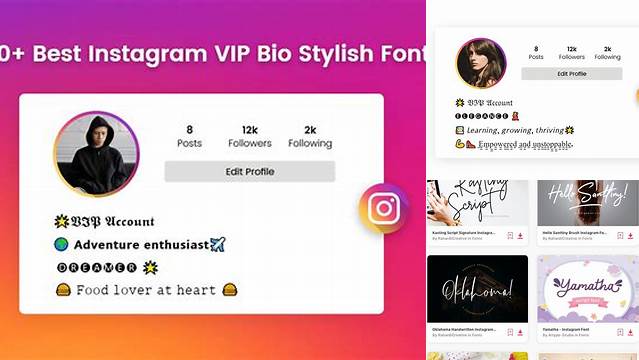
Cool Fonts For Instagram On IOS: Level Up Your Bio & Posts!
Hey guys! Want to make your Instagram profile and posts really pop? One of the easiest ways to do that is by using cool fonts! The default Instagram font is fine, but let's be honest, it can get a little boring. Luckily, there are tons of ways to spice things up, especially if you're rocking an iOS device. In this article, we're diving deep into the world of Instagram fonts on iOS, showing you how to find them, use them, and make your profile stand out from the crowd. We’ll cover everything from fancy fonts for your bio to eye-catching fonts for your stories and captions. Get ready to unleash your creativity and make your Instagram game stronger than ever!
1. Why Use Different Fonts on Instagram?
Let's face it, scrolling through Instagram can sometimes feel like looking at a sea of the same old thing. Everyone's using similar filters, posting similar content, and, yes, using the same font! Using different fonts is a super simple way to instantly add some personality to your profile. Think of it like this: your font is part of your brand. Whether you're going for playful, elegant, bold, or quirky, the right Instagram font can help you communicate your vibe to your followers. Beyond aesthetics, using diverse fonts on Instagram can also be a strategic move. A unique font can make your captions more readable, highlight important information, or simply grab someone's attention as they're scrolling through their feed. Imagine you're running a contest – using a bold, eye-catching font to announce the details is way more effective than burying it in regular text. So, ditch the monotony and let's get font-tastic!
2. Best Font Generator Apps for iOS
Okay, so you're sold on the idea of using cool fonts on Instagram, but where do you even find them? Thankfully, there are tons of awesome font generator apps available for iOS that make it super easy to create stylish text. These apps basically work by generating Unicode characters that look like different fonts, but are actually compatible with Instagram's text fields. Some of the best font generator apps for iOS include Fontsy, Fonts for Instagram, and Cool Fonts. These apps usually have a wide variety of fonts to choose from, from elegant scripts to bold sans-serifs and even fun, quirky styles. They're generally free to download and use, although some may offer premium features or font packs for a small fee. The best part? Using these apps is usually as simple as typing your text into the app, choosing your font, and then copying and pasting it into your Instagram bio, caption, or story. Easy peasy!
3. How to Change Your Instagram Bio Font on iOS
Your Instagram bio is like your first impression – it's the first thing people see when they land on your profile. So, it's prime real estate for showcasing your personality! Changing your Instagram bio font is a super effective way to make it stand out. The process is really straightforward, especially on iOS. First, you'll need to use one of the font generator apps we talked about earlier. Type the text you want in your bio into the app, then scroll through the font options until you find one you love. Once you've found your perfect bio font, just copy the text and head over to your Instagram profile. Tap "Edit Profile," then paste the text into your bio field. Boom! You've got a stylish new bio that reflects your unique vibe. Remember to keep your bio concise and engaging, and choose a font that's both eye-catching and easy to read. A little font magic can go a long way in making your profile more memorable!
4. Cool Fonts for Instagram Stories on iOS
Instagram Stories are all about grabbing attention quickly, and cool fonts can play a huge role in that. While Instagram itself offers a few basic font options for Stories, they can sometimes feel a little limiting. That's where font generator apps come in handy again! Using an app like Fontsy or Cool Fonts, you can create all sorts of unique fonts for your Instagram Stories. Imagine adding a handwritten-style font to announce a sale, or using a bold, futuristic font to promote a new product. The possibilities are endless! The process is the same as changing your bio font: just type your text into the app, choose your font, copy it, and paste it into your Story. You can even use different fonts within the same Story to create visual interest and highlight different parts of your message. Get creative and have fun experimenting with different styles to see what resonates best with your audience.
5. Fonts for Instagram Captions on iOS
Captions are your chance to really connect with your audience, and the font you use can influence how your message is received. A well-chosen font can make your captions more engaging, readable, and reflective of your personality. Just like with bios and Stories, you can use font generator apps to create custom fonts for your Instagram captions on iOS. Think about the overall tone and style you want to convey. If you're sharing a heartfelt story, a softer, more elegant font might be a good choice. If you're posting something funny or playful, a bolder or quirkier font could be more appropriate. Don't be afraid to experiment and see what works best for you. Remember, the goal is to make your captions stand out and encourage your followers to engage with your content. A little font flair can make all the difference!
6. How to Use Font Generator Apps Effectively
So, you've got your font generator app downloaded and you're ready to go wild with fonts, but it's important to use these tools effectively. Here are a few tips to keep in mind: First, readability is key. While fancy, ornate fonts can look cool, they're not always the easiest to read, especially on a small screen. Choose fonts that are clear and legible, so your message doesn't get lost in translation. Second, consider your brand. The fonts you use should align with your overall brand aesthetic and personality. If you have a minimalist brand, a clean, sans-serif font might be a better choice than a frilly script font. Third, don't overdo it. Using too many different fonts in the same bio, caption, or Story can look cluttered and overwhelming. Stick to one or two fonts to maintain a cohesive and professional look. Finally, remember that these fonts are actually Unicode characters, so they might not display perfectly on all devices or platforms. It's always a good idea to double-check how your text looks on different screens before you post.
7. Free Font Options for Instagram on iOS
The good news is that you don't have to spend a dime to access cool fonts for Instagram on iOS. Many font generator apps offer a wide variety of free font options, so you can experiment and find the perfect style without breaking the bank. Some apps may offer premium fonts or font packs for purchase, but the free options are usually more than enough to get you started. Plus, Instagram itself offers a few basic font options within the Stories feature, which are always free to use. Don't be afraid to mix and match free fonts from different sources to create a unique look. You can combine a free font from a generator app in your bio with a built-in Instagram font in your Story, for example. The key is to have fun and explore the possibilities!
8. Paid Font Options for Instagram on iOS
If you're looking for even more font choices or want to support the developers of your favorite font generator app, you might consider exploring paid font options. Some apps offer premium font packs or subscriptions that unlock a wider range of styles. These paid fonts often include more unique, high-quality designs that can really elevate your Instagram presence. Before you shell out any cash, make sure the paid fonts are worth the investment. Consider whether they truly align with your brand and whether you'll use them frequently enough to justify the cost. You can also look for apps that offer a free trial period, so you can test out the paid fonts before committing to a purchase. And remember, there are tons of amazing free font options available, so you don't need to spend money to create a stylish Instagram profile.
9. Combining Fonts for Visual Impact
Using different fonts strategically can create a major visual impact on your Instagram. The key is to combine fonts thoughtfully, not just randomly. A good rule of thumb is to choose two fonts that complement each other – for example, a bold heading font and a clean, readable body font. Think about contrast. Pairing a script font with a sans-serif font can create a nice visual contrast, while using two similar fonts might look a bit boring. You can also use different fonts to highlight different parts of your message. For example, you might use a bold font for your bio headline and a more understated font for the rest of your text. In your Stories, try using a different font for your main text and your call to action. Just remember to keep it consistent! Sticking to a consistent font pairing throughout your profile and content will help create a cohesive and professional look.
10. Font Size and Spacing on Instagram
Choosing the right font is only half the battle – you also need to pay attention to font size and spacing. Text that's too small can be difficult to read, while text that's too large can look overwhelming. Similarly, too little spacing can make your text look cramped, while too much spacing can make it feel disjointed. In your Instagram bio, aim for a font size that's large enough to be easily readable on a mobile screen, but not so large that it takes up too much space. In your Stories, you can adjust the font size to fit your layout and create visual hierarchy. For captions, consider breaking up long blocks of text with line breaks to improve readability. You can also use emojis or symbols to add visual interest and break up the monotony of the text. Experiment with different font sizes and spacing until you find a balance that looks good and is easy to read.
11. Readability Considerations for Instagram Fonts
We've talked a lot about cool fonts and visual impact, but let's not forget the most important factor: readability. No matter how stylish a font looks, if it's difficult to read, it's not doing its job. When choosing fonts for Instagram, prioritize clarity and legibility. Avoid fonts that are too ornate, condensed, or have unusual letterforms. These fonts might look interesting, but they can be a pain to decipher, especially on a small screen. Consider your audience. If you're targeting a younger demographic, you might be able to get away with more playful fonts. But if you're trying to reach a professional audience, a cleaner, more classic font is probably a better choice. Always test your text on different devices and screen sizes to make sure it's easy to read for everyone. And if you're ever in doubt, err on the side of simplicity. A clear, readable font will always be more effective than a fancy but illegible one.
12. Font Color and Backgrounds on Instagram
The color of your font and the background you use can have a huge impact on readability and visual appeal. On Instagram Stories, you have a variety of font color options to choose from, and you can even use the color picker tool to select a custom color. When choosing a font color, consider the background. If you're using a light background, a dark font will provide the best contrast. Conversely, if you're using a dark background, a light font will be more visible. Avoid using font colors that are too similar to the background color, as this can make your text difficult to read. You can also use backgrounds strategically to make your text stand out. Try adding a solid color background behind your text in your Stories, or using a subtle gradient to add visual interest. Just make sure your background doesn't distract from your message. The goal is to create a visually appealing and readable combination of font color and background.
13. Matching Fonts to Your Instagram Aesthetic
Your Instagram aesthetic is the overall look and feel of your profile, and your fonts should be a part of that. Choosing fonts that match your aesthetic can help you create a cohesive and professional-looking profile. If you have a minimalist aesthetic, clean, sans-serif fonts are a great choice. These fonts are simple, modern, and easy to read. If you have a more playful or whimsical aesthetic, you might opt for a script font or a font with a bit more personality. If your aesthetic is bold and edgy, a strong, geometric font could be a good fit. Think about the colors you use in your photos and graphics. Choose fonts that complement your color palette. For example, if you use a lot of warm colors, a font with a warm, inviting feel might be a good choice. The key is to choose fonts that reflect your brand and create a consistent visual experience for your followers.
14. Using Fonts to Highlight Key Information
Fonts can be a powerful tool for highlighting key information in your Instagram captions, bios, and Stories. By using different fonts strategically, you can draw attention to the most important parts of your message. For example, you might use a bold font to highlight a call to action, like "Shop Now" or "Learn More." You can also use different fonts to differentiate between headings and body text. A larger, bolder font for your headings will make them stand out and help your readers quickly scan your content. In your bio, consider using a unique font for your headline to grab attention. In your Stories, you can use animated fonts or text effects to highlight key words or phrases. Just remember to use fonts strategically and sparingly. Overusing different fonts can make your content look cluttered and overwhelming. The goal is to use fonts to guide your readers' eyes and help them focus on the most important information.
15. Creating a Font Style Guide for Your Brand
If you're serious about branding your Instagram, creating a font style guide is a smart move. A font style guide is a document that outlines the fonts you use for your brand and how you use them. It ensures consistency across all your content and helps you maintain a professional and recognizable look. Your font style guide should include the primary and secondary fonts you use, as well as guidelines for how to use them in different contexts. For example, you might specify which font to use for headings, body text, captions, and Stories. You should also include information about font sizes, colors, and spacing. Share your font style guide with anyone who creates content for your brand, such as your social media manager or graphic designer. This will help them maintain consistency and ensure that all your content aligns with your brand aesthetic. Creating a font style guide is an investment in your brand that will pay off in the long run.
16. The Psychology of Fonts: How Fonts Affect Perception
Did you know that fonts can actually influence how people perceive your message? Different fonts evoke different emotions and associations, so choosing the right font can be crucial for communicating your brand's personality. Serif fonts, like Times New Roman, often convey a sense of tradition, authority, and sophistication. Sans-serif fonts, like Helvetica or Arial, tend to feel more modern, clean, and approachable. Script fonts can be elegant and romantic, but they can also be difficult to read if overused. Display fonts, which are more decorative and unique, can be great for grabbing attention, but they should be used sparingly. Think about the message you want to convey and the emotions you want to evoke. If you want to project a sense of trust and reliability, a classic serif font might be a good choice. If you want to come across as innovative and cutting-edge, a modern sans-serif font could be a better fit. Understanding the psychology of fonts can help you make more strategic choices and create a more impactful message.
17. Font Pairing Tips for Instagram
We've already touched on the importance of combining fonts thoughtfully, so let's dive a little deeper into font pairing tips for Instagram. The goal of font pairing is to create visual harmony and make your text more engaging and readable. A classic font pairing strategy is to combine a serif font with a sans-serif font. This creates a nice contrast and makes your headings stand out. For example, you could pair a bold sans-serif font for your headings with a more elegant serif font for your body text. Another font pairing tip is to choose fonts with different weights and styles. If you're using a bold font for your headings, try pairing it with a lighter weight font for your body text. You can also experiment with different font styles, such as italics or condensed fonts, to add visual interest. When pairing fonts, it's important to choose fonts that complement each other, not compete. Avoid pairing fonts that are too similar, as this can look boring. And try to limit yourself to two or three fonts per design to avoid overwhelming your readers. With a little practice, you'll be able to master the art of font pairing and create stunning visual content for your Instagram.
18. Fonts for Different Instagram Post Types
The fonts you use on Instagram might vary depending on the type of post you're creating. For example, the fonts you use in your bio might be different from the fonts you use in your Stories or captions. In your bio, you want to choose fonts that are eye-catching and memorable, but also easy to read at a glance. Consider using a unique font for your headline and a cleaner font for the rest of your bio text. For Instagram Stories, you have more flexibility to experiment with different fonts and styles. You can use animated fonts, handwritten fonts, or bold, attention-grabbing fonts to make your Stories more engaging. In your captions, readability is key. Choose fonts that are clear and legible, even on a small screen. You can use different fonts to highlight key words or phrases, but avoid using too many different fonts in the same caption. For Instagram Reels, which are short-form videos, you might want to use fonts that are dynamic and visually interesting. Consider using animated text or text that moves along with the video. By tailoring your font choices to the specific type of Instagram post, you can create a more cohesive and impactful brand presence.
19. Common Font Mistakes to Avoid on Instagram
Using cool fonts on Instagram can be a great way to stand out, but it's important to avoid some common font mistakes. One of the biggest mistakes is using fonts that are too difficult to read. As we've emphasized before, readability is key. Avoid fonts that are too ornate, condensed, or have unusual letterforms. Another common mistake is using too many different fonts in the same design. This can make your content look cluttered and overwhelming. Stick to two or three fonts at most, and make sure they complement each other. Overusing special effects, like shadows or outlines, can also make your text difficult to read. Keep your text simple and clean, and let the font speak for itself. Ignoring font size and spacing is another mistake to avoid. Make sure your text is large enough to be easily readable on a mobile screen, and use appropriate spacing to prevent your text from looking cramped or disjointed. Finally, don't forget to proofread your text for typos and grammatical errors. Even the coolest font can't save a message that's riddled with mistakes. By avoiding these common font mistakes, you can ensure that your Instagram content looks professional and polished.
20. Font Trends on Instagram: What's Popular Now?
The world of fonts, like fashion, is subject to trends. What's popular one year might be outdated the next. Staying on top of font trends can help you keep your Instagram content fresh and relevant. Right now, some of the font trends on Instagram include: Bold, sans-serif fonts: These fonts are clean, modern, and easy to read, making them a popular choice for headings and captions. Handwritten fonts: These fonts add a personal touch to your content and are great for Stories and informal posts. Vintage-inspired fonts: These fonts evoke a sense of nostalgia and are often used for branding and logos. Geometric fonts: These fonts have a sleek, futuristic look and are popular for tech and design brands. Animated fonts: These fonts add movement and visual interest to your Stories and Reels. Of course, it's important to remember that trends come and go. While it's good to be aware of what's popular, it's even more important to choose fonts that align with your brand and aesthetic. Don't feel pressured to use a trendy font just because everyone else is using it. Choose fonts that are timeless and reflect your unique personality.
21. How to Test Fonts Before Using Them
Before you commit to a particular font for your Instagram bio, captions, or Stories, it's always a good idea to test it out first. This will help you ensure that the font looks good on different devices and screen sizes, and that it's easy to read. One simple way to test fonts is to type your text into a font generator app and then copy and paste it into a note on your phone. View the note on different devices, such as your phone, tablet, and computer, to see how the font looks on each screen. You can also ask a friend to view the text on their device to get a second opinion. Another way to test fonts is to create a mock-up of your Instagram post or Story using a graphic design tool like Canva or Adobe Photoshop. This will allow you to see how the font looks in context with your images and other design elements. When testing fonts, pay attention to readability, spacing, and overall visual appeal. Is the font easy to read on a small screen? Does it look good with your brand colors and images? Does it convey the message you want to send? By testing fonts before you use them, you can avoid making a font faux pas and ensure that your Instagram content looks its best.
22. The Legal Aspects of Using Fonts
When you're choosing fonts for your Instagram, it's important to consider the legal aspects of using them. Not all fonts are free for commercial use. Some fonts are licensed, which means you need to purchase a license to use them for business purposes, such as in your Instagram branding or marketing materials. Using a licensed font without permission can result in legal consequences. Before you use a font, check its license to see what uses are allowed. Many free font websites, like Google Fonts and Font Squirrel, offer fonts that are licensed for commercial use. However, it's always a good idea to double-check the license terms to make sure you're in compliance. If you're not sure whether a font is licensed for commercial use, it's best to err on the side of caution and choose a different font. You can also purchase font licenses from font foundries or marketplaces. These licenses typically grant you the right to use the font for a variety of commercial purposes, such as in your branding, website, and marketing materials. By understanding the legal aspects of using fonts, you can avoid copyright infringement and protect your business.
23. Fonts and Accessibility: Making Your Content Inclusive
Creating accessible content is crucial for making your Instagram inclusive and ensuring that everyone can enjoy your posts and Stories. Fonts play a key role in accessibility. Choosing the right fonts can make your content easier to read for people with visual impairments or learning disabilities. When choosing fonts for accessibility, prioritize clarity and legibility. Avoid fonts that are too ornate, condensed, or have unusual letterforms. Sans-serif fonts are generally considered more accessible than serif fonts, as they have simpler letterforms. Use a font size that is large enough to be easily readable on a mobile screen. Avoid using small font sizes, as these can be difficult for people with visual impairments to see. Provide sufficient contrast between your text and background colors. Use dark text on a light background or light text on a dark background. Avoid using colors that are too similar, as this can make your text difficult to read. Use proper spacing and line breaks to improve readability. Break up long blocks of text into shorter paragraphs and use bullet points or numbered lists to make information easier to digest. By following these tips, you can choose fonts that make your Instagram content accessible to everyone.
24. Using Emojis and Symbols with Fonts
Emojis and symbols can be a fun way to add visual interest to your Instagram content and enhance your message. When using emojis and symbols with fonts, it's important to consider how they interact with your chosen font. Some fonts may not display emojis and symbols correctly, or they may clash with the overall style of your text. Before you use emojis and symbols in your captions or Stories, test them out to make sure they look good with your chosen font. Consider the color and style of your emojis and symbols. Do they complement your font and brand colors? Are they consistent with your overall aesthetic? Use emojis and symbols sparingly. A few well-placed emojis can add personality to your content, but too many can be distracting. Use emojis and symbols to highlight key words or phrases, or to break up long blocks of text. Be mindful of the cultural connotations of emojis and symbols. Some emojis and symbols may have different meanings in different cultures, so it's important to use them appropriately. By using emojis and symbols thoughtfully, you can enhance your Instagram content and connect with your audience in a more engaging way.
25. Fonts for Instagram Logos and Branding
Your Instagram logo and branding are crucial for creating a consistent and recognizable brand identity. The fonts you use in your logo and branding should reflect your brand's personality and values. Choose fonts that are memorable, legible, and align with your overall aesthetic. Your logo font should be unique and distinctive. It should stand out from the crowd and make a lasting impression. Consider using a custom font for your logo to create a truly one-of-a-kind look. Your branding fonts should be consistent across all your marketing materials, including your Instagram profile, website, and social media graphics. Choose a primary font for your headings and a secondary font for your body text. These fonts should complement each other and create a cohesive visual experience. Test your logo and branding fonts on different devices and screen sizes to make sure they look good in all contexts. Consider how your fonts will look in both print and digital formats. Seek feedback from others on your logo and branding fonts. Ask friends, colleagues, or potential customers for their opinions. By choosing the right fonts for your Instagram logo and branding, you can create a strong and memorable brand identity that resonates with your target audience.
26. How to Find Font Inspiration
Feeling stuck in a font rut? Need some inspiration for your next Instagram design? There are tons of resources available to help you find font inspiration! One of the best places to start is online font libraries like Google Fonts, Font Squirrel, and Adobe Fonts. These websites offer a vast collection of free and premium fonts, with powerful search filters that allow you to browse by style, category, and even language. You can also explore design blogs and websites like Dribbble and Behance. These platforms showcase the work of talented designers from around the world, and they're a great source of inspiration for font pairings and typography trends. Social media platforms like Pinterest and Instagram can also be great sources of font inspiration. Search for hashtags like #typography, #fontspiration, or #graphicdesign to discover beautiful typography examples. Pay attention to the fonts that other brands and influencers are using on Instagram. What fonts do you find visually appealing? How are they using fonts to communicate their brand message? Don't be afraid to experiment with different fonts and styles. Try combining fonts that you wouldn't normally pair together, or creating your own custom fonts using a font editing tool. By exploring different resources and experimenting with new ideas, you can find font inspiration and create unique and eye-catching designs for your Instagram.
27. Creating Custom Fonts for a Unique Brand Identity
If you're looking to truly stand out on Instagram and create a unique brand identity, consider creating custom fonts. Custom fonts can help you differentiate your brand from the competition and communicate your brand's personality and values in a distinctive way. There are several ways to create custom fonts. You can hire a font designer to create a custom font for you. This is the most expensive option, but it allows you to create a truly bespoke font that perfectly reflects your brand. You can use a font editing tool like FontLab Studio or Glyphs to create your own custom fonts. These tools allow you to design each letterform individually and create a font that is tailored to your specific needs. You can modify an existing font to create a custom font. This is a good option if you like the basic structure of a particular font but want to make some changes to it. When creating custom fonts, it's important to consider your brand's overall aesthetic and message. What kind of personality do you want your font to convey? What emotions do you want it to evoke? Your custom font should be legible, versatile, and visually appealing. It should work well in a variety of contexts, from your logo to your website to your Instagram captions. By creating custom fonts, you can elevate your brand identity and make a lasting impression on your audience.
28. Advanced Typography Techniques for Instagram
Want to take your Instagram typography skills to the next level? There are several advanced typography techniques that you can use to create visually stunning and impactful designs. Kerning is the process of adjusting the spacing between individual letters to create a more balanced and aesthetically pleasing look. Tracking is the process of adjusting the overall spacing between all the letters in a word or phrase. Leading is the vertical space between lines of text. Adjusting the leading can improve readability and create a more visually appealing layout. Hierarchy is the arrangement of text elements to guide the reader's eye and emphasize the most important information. You can create hierarchy by using different font sizes, weights, and styles. Alignment is the way text is positioned on the page or screen. Common alignment options include left-aligned, right-aligned, centered, and justified. Contrast is the difference between different elements in your design, such as font size, color, and weight. Using contrast effectively can help you create visual interest and highlight key information. By mastering these advanced typography techniques, you can create Instagram designs that are both beautiful and effective.
29. The Future of Fonts on Instagram
What does the future of fonts on Instagram look like? As Instagram continues to evolve and add new features, the way we use fonts on the platform is likely to change as well. We may see Instagram add more built-in font options, giving users more control over their typography. We may also see the rise of more dynamic and interactive fonts, such as animated fonts or fonts that respond to user interactions. Artificial intelligence (AI) may play a role in the future of fonts on Instagram. AI-powered tools could help users choose the best fonts for their content, or even generate custom fonts automatically. Accessibility will likely become an even bigger focus in the future of fonts on Instagram. Instagram may implement features that automatically adjust font size and spacing for users with visual impairments. The metaverse and augmented reality (AR) may also influence the future of fonts on Instagram. We may see the emergence of 3D fonts or fonts that are designed specifically for AR experiences. One thing is certain: fonts will continue to play a crucial role in the visual language of Instagram. By staying informed about the latest trends and technologies, you can be sure that your Instagram typography is always on point.
30. Resources for Learning More About Fonts
Want to deepen your knowledge of fonts and typography? There are tons of resources available to help you learn more! Online courses are a great way to get a comprehensive education in typography. Platforms like Skillshare, Coursera, and Udemy offer courses on topics like font design, font pairing, and typography for the web. Books are another excellent resource for learning about fonts. Some popular typography books include "The Elements of Typographic Style" by Robert Bringhurst, "Thinking with Type" by Ellen Lupton, and "Type Matters!" by Jim Williams. Design blogs and websites like Smashing Magazine, A List Apart, and Creative Bloq often publish articles and tutorials on typography. Follow typography experts and designers on social media. Platforms like Twitter, Instagram, and Dribbble are great places to connect with typography enthusiasts and learn from their expertise. Attend typography workshops and conferences. These events offer the opportunity to learn from industry leaders and network with other designers. Experiment with different fonts and typography techniques. The best way to learn about fonts is to practice and apply your knowledge to real-world projects. By exploring these resources and dedicating time to learning, you can become a typography expert and elevate your design skills.